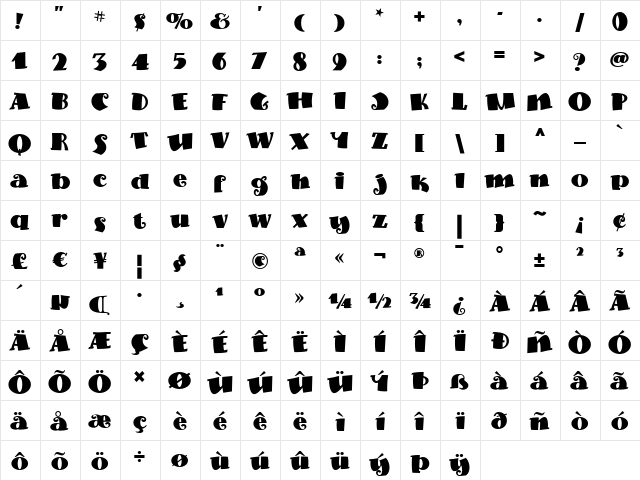
Beagle Boyz NF Regular
Design Context for Beagle Boyz NF Typeface
Beagle Boyz NF is a composed and adaptable typeface that performs quietly and consistently across a wide range of design contexts.
Pro Tip: Use Beagle Boyz NF in both headline and body roles to test its range before committing to a single application.